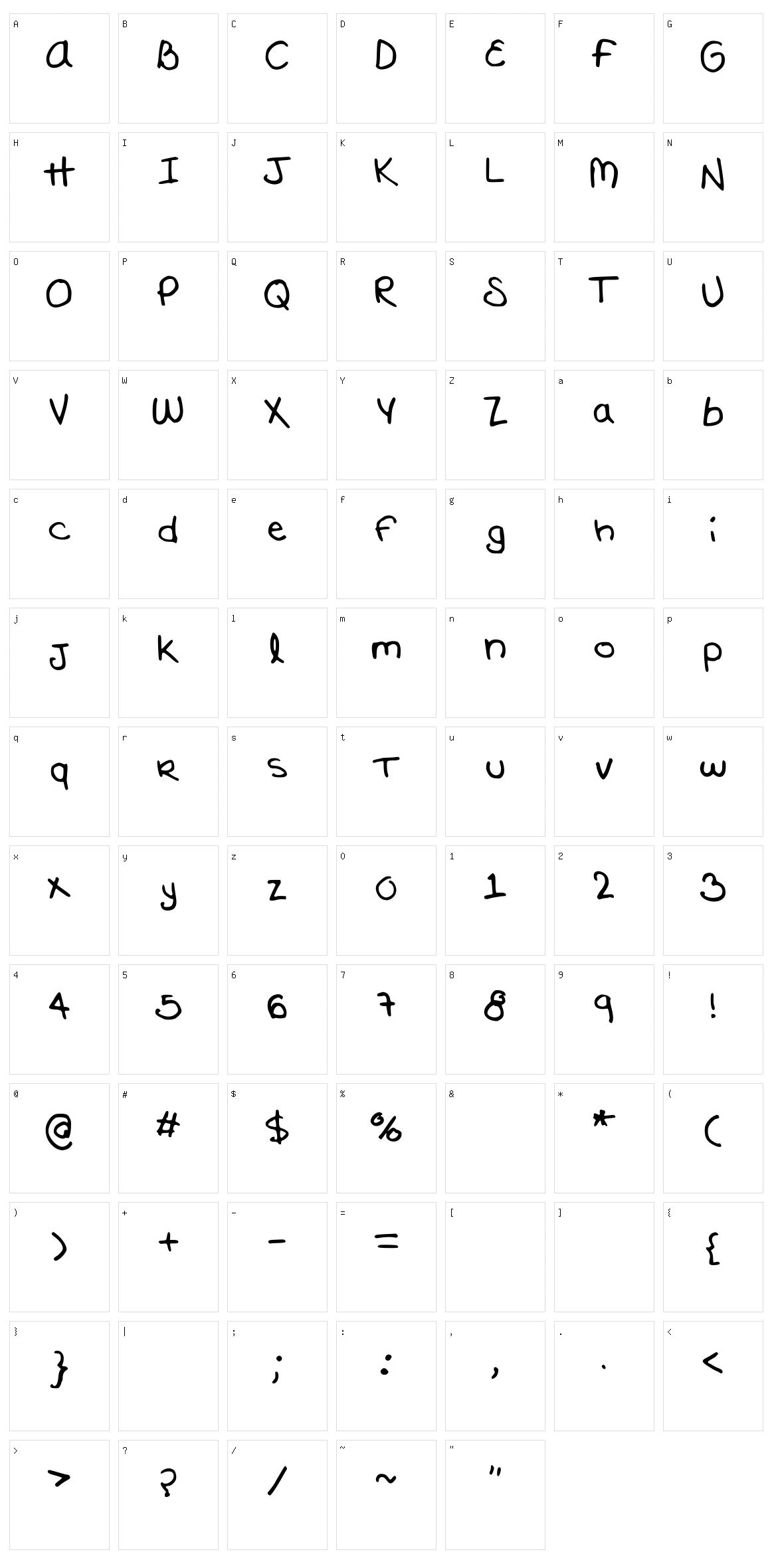
The free font Marijolover is carefully designed by Leticia Bandala, showcasing a thoughtful balance of creativity and usability and falls under the Script font style. When you download the ZIP file, it contains only 12.62 KB of font files, making it lightweight and quick to download. Please review the license details below to understand permitted usage and distribution rights. If license information is not available, we recommend using this font for personal projects only or contacting the author directly for commercial usage permissions.